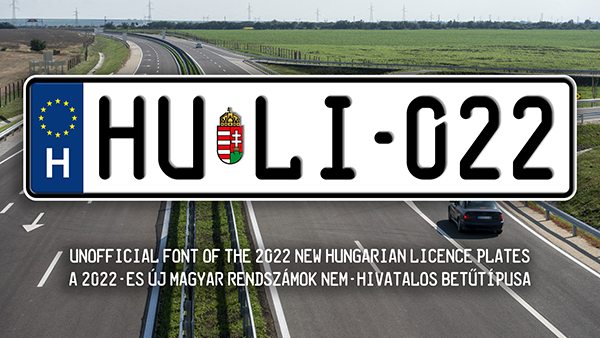
New font of the 2022 hungarian License plates. To get the license plate effect, type: @/hu#li-022 This font is free to use for any kind of project. Any donations are highly appreciated. paypal: eugensuperstar1@gmail.com Thank you for downloading this font, enjoy! |